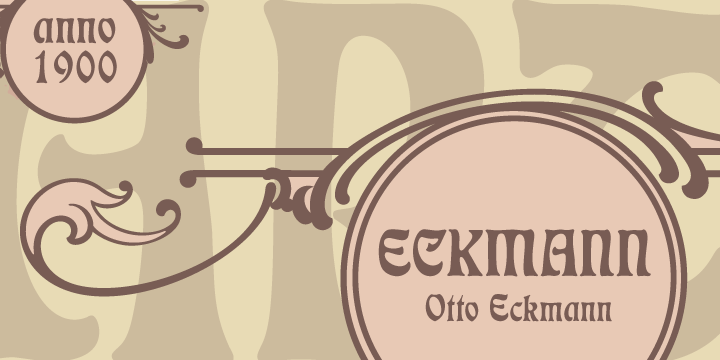
Eckmann Font is perfect for Art Nouveau exhibition materials, vintage poster reproductions, decorative arts museums, classical European café signage, turn-of-century design projects, ornamental architectural displays, historical typography showcases, period drama productions, vintage European branding, cultural heritage celebrations, and any project that requires elegant Art Nouveau character with German Jugendstil sophistication.
What makes Eckmann Font exciting is its authentic representation of the Art Nouveau movement and German Jugendstil design philosophy through flowing organic letterforms that capture the artistic revolution of the early 20th century and the harmony between nature and craftsmanship. This artistic typeface features decorative flourishes with botanical inspiration that convey cultural refinement and artistic heritage. The font's Art Nouveau character adds instant cultural credibility and artistic appeal to any design, making it perfect for brands celebrating European artistic movements and decorative arts excellence.
Eckmann Font comes in multiple font families including Regular, Bold, Light, Ornate, Condensed, and Decorative variations, providing designers with comprehensive options to create artistic compositions and achieve the perfect Art Nouveau aesthetic for culturally-focused design projects.
Whether you're developing cultural arts branding, creating historical exhibition materials, or designing artistic heritage campaigns, Eckmann Font Free Download offers the perfect solution for projects demanding authentic Art Nouveau character and European artistic sophistication. This ornamental typeface excels in display applications where cultural presence is essential, ensuring your designs communicate artistic excellence and European cultural values. The flowing character and Art Nouveau styling of Eckmann Font make it an indispensable tool for designers who prioritize European art movements, decorative arts, and cultural artistic heritage in their typographic selections.